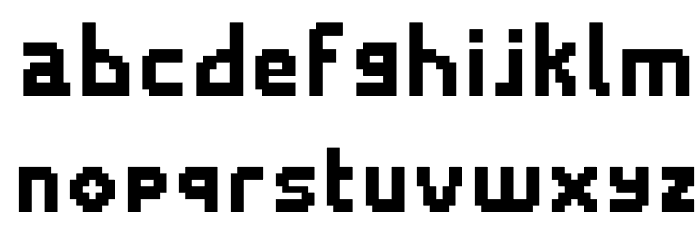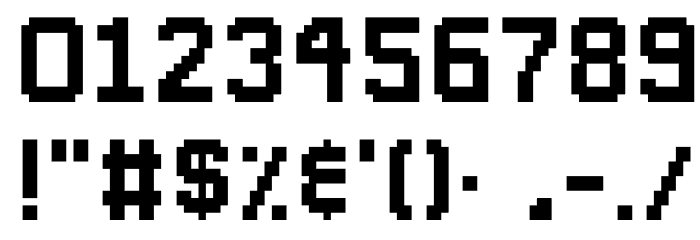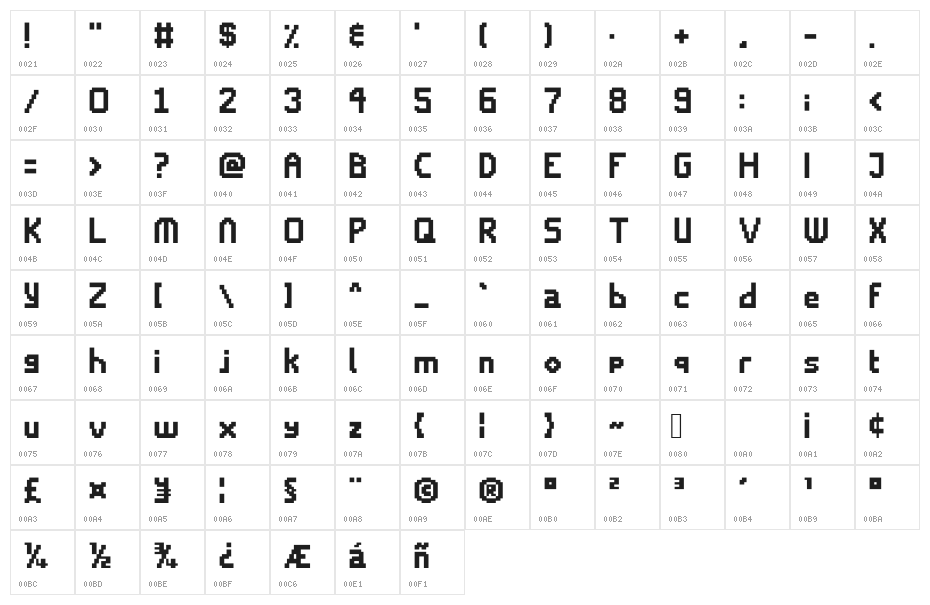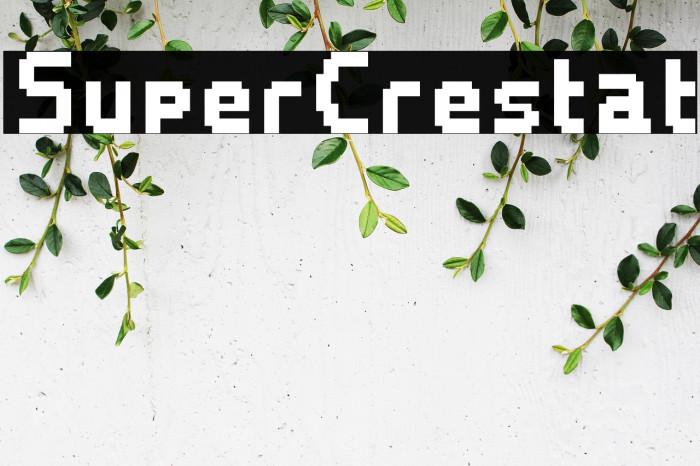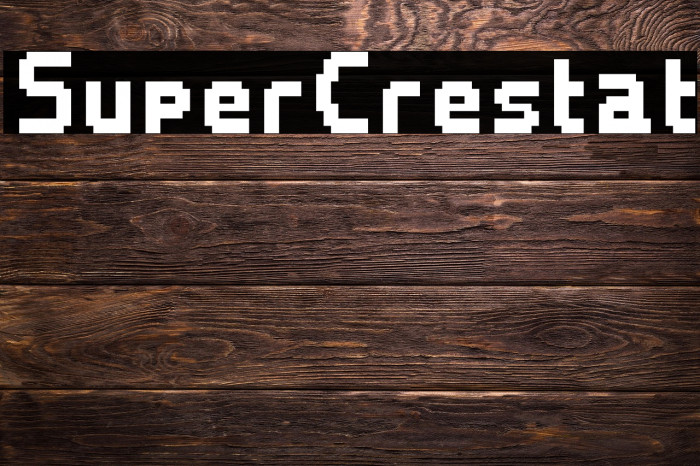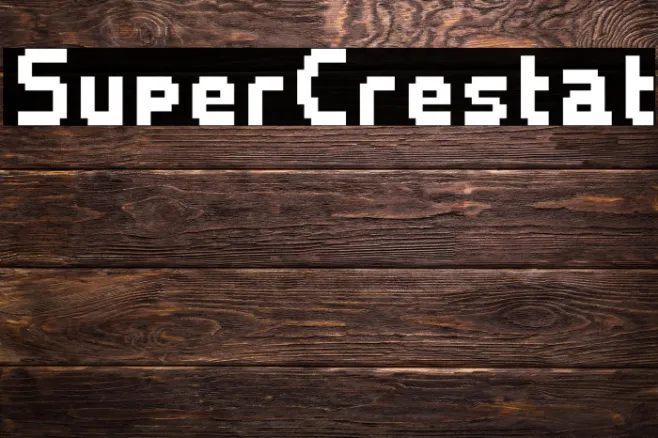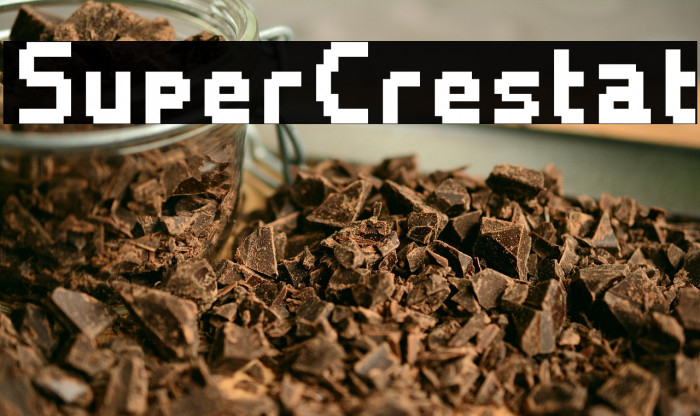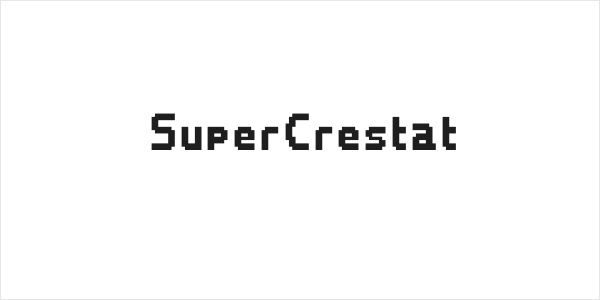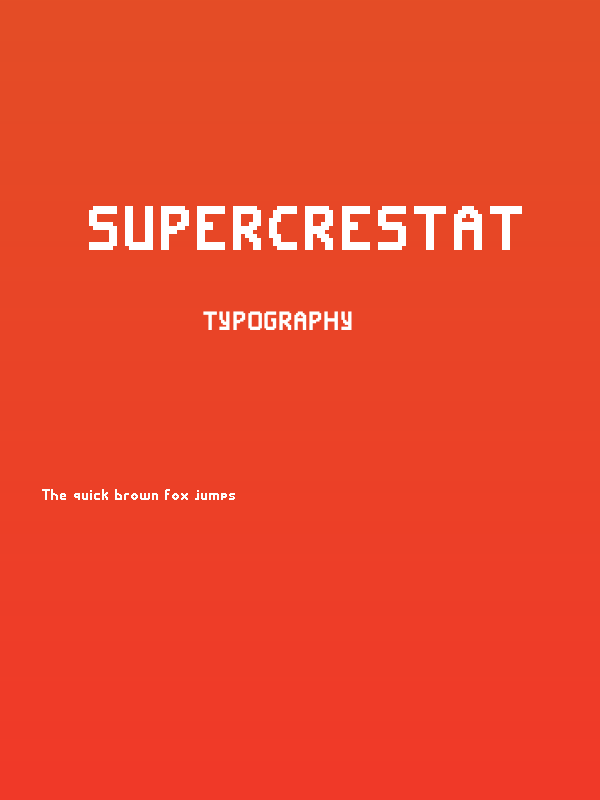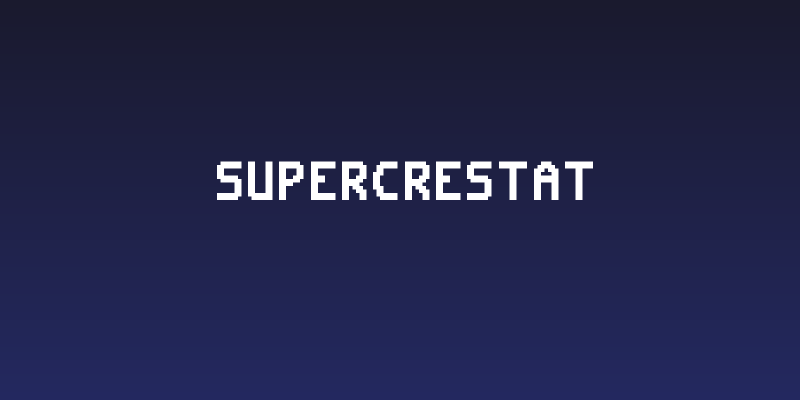
SuperCrestat Font
This font features a bold, pixelated design reminiscent of classic video game typography. Each character is composed of blocky, square shapes that create a retro, digital aesthetic. The uppercase and lowercase letters maintain a consistent height, enhancing the uniformity of the design. Numbers and special characters follow the same pixelated style, ensuring a cohesive look across all elements. The font's geometric simplicity makes it highly legible, even at smaller sizes, while its distinctive style adds a playful, nostalgic touch to any project.
A bold, pixelated font with a retro, digital aesthetic.
- Font: SuperCrestat
- Proposed Projects: Ideal for video game design, retro-themed posters, digital art, and any project seeking a nostalgic, pixelated look.
- Overall Style: Retro, Digital